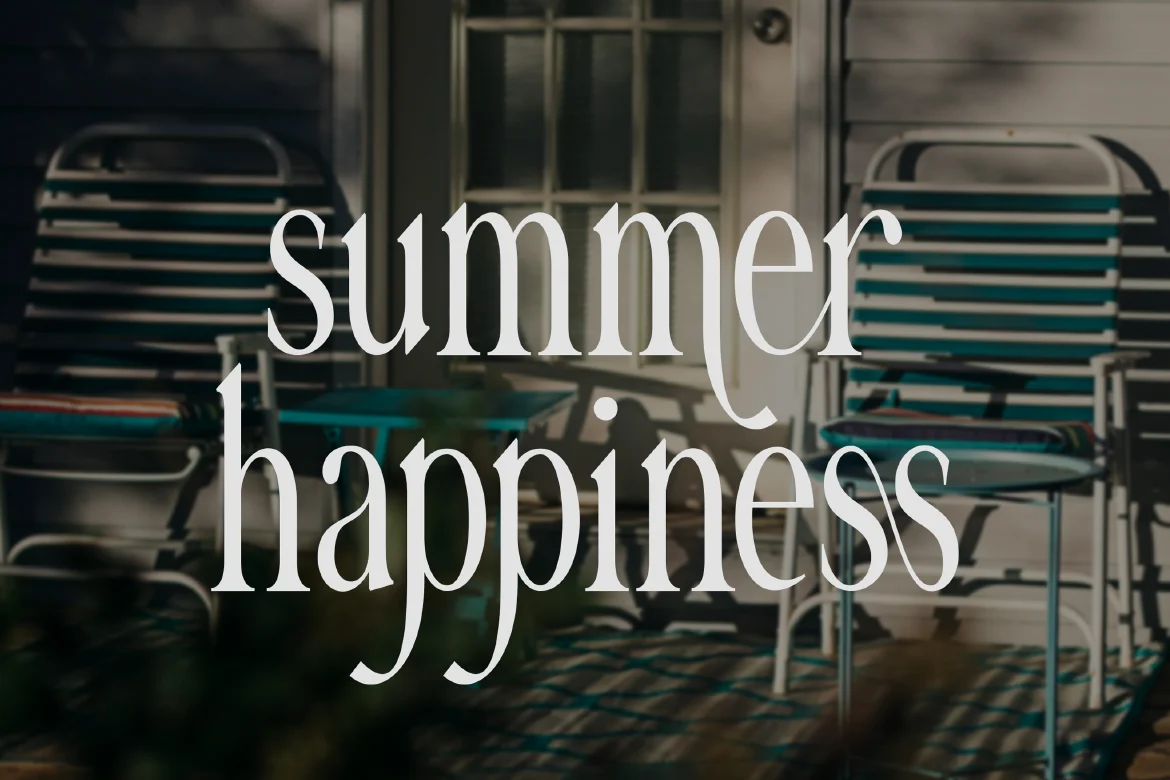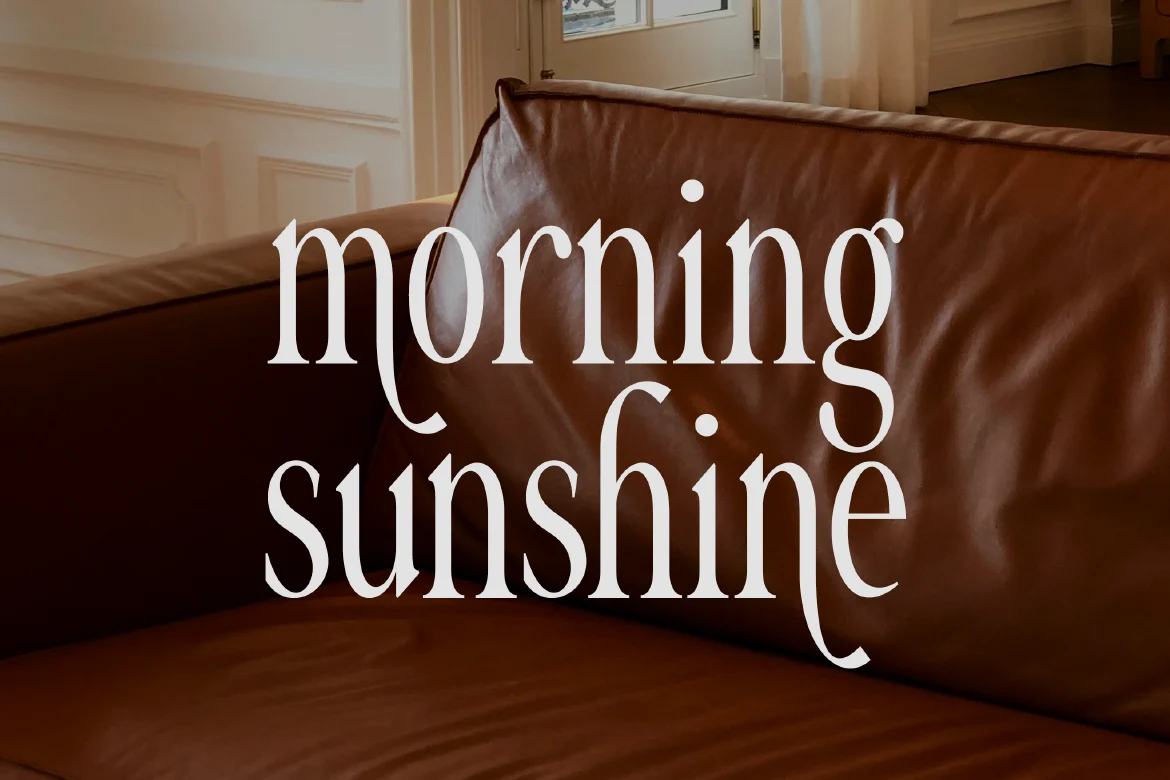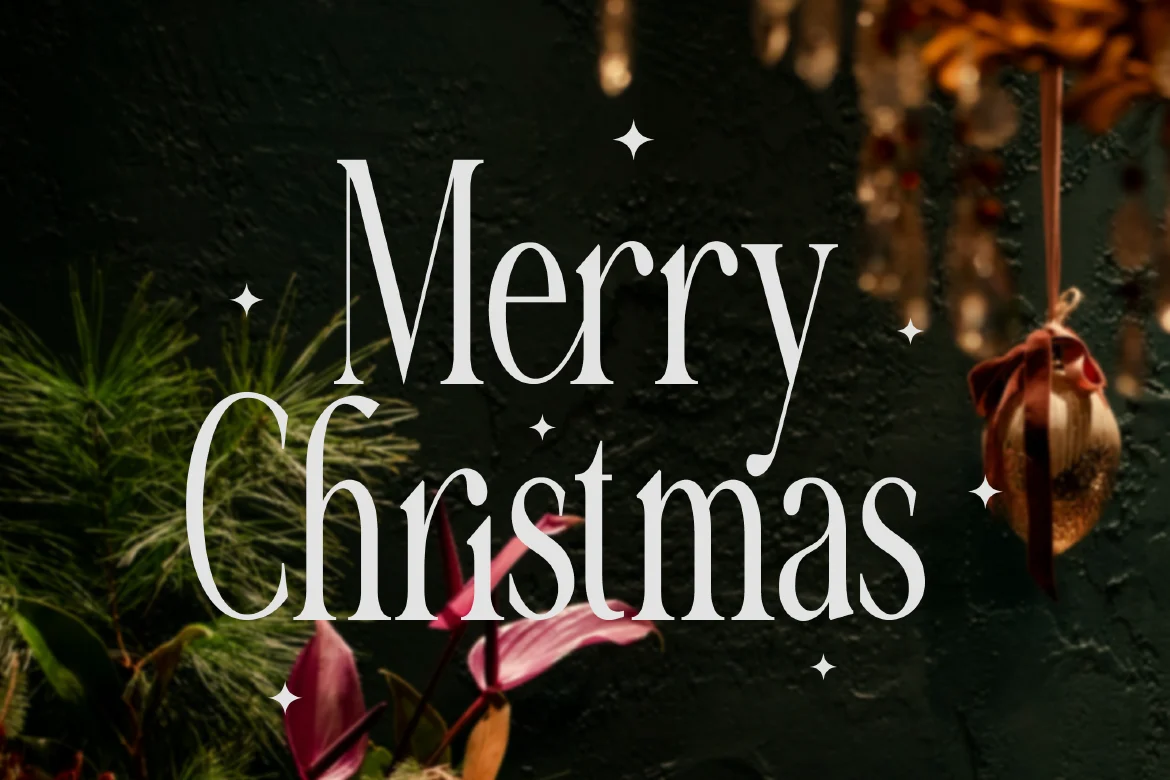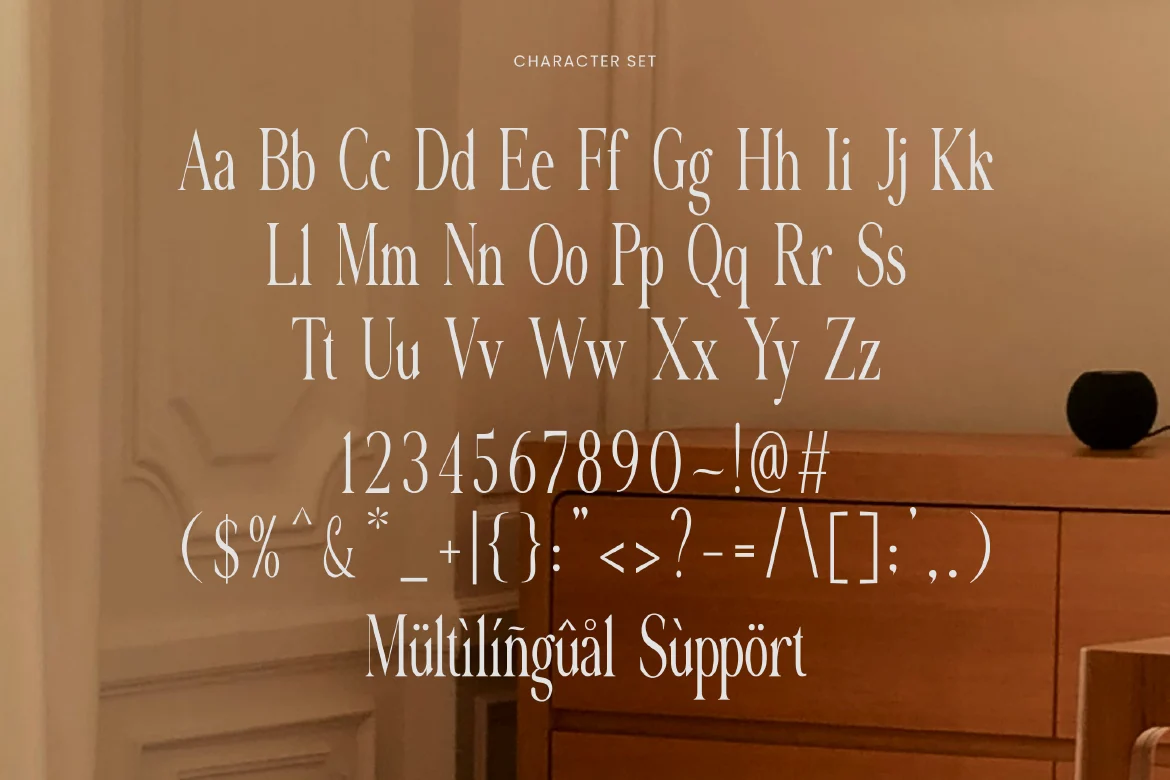
Elegant Serif Font – Fragilous
Modern Elegant Serif Font - Fragilous
Fragilous is a modern elegant serif typeface designed to express delicate beauty with a refined contemporary touch. Featuring graceful curves, fine contrast, and sophisticated letterforms, Fragilous creates a soft yet striking visual presence. Its elegant structure blends classic serif charm with modern styling, making it perfect for designs that require both subtlety and luxury. Whether for branding, editorial layouts, or premium packaging, Fragilous brings a sense of grace and high-end appeal to every composition.
Who Should Use Fragilous?
Fragilous is ideal for designers, creatives, and brands who want to convey elegance, femininity, and modern sophistication. It’s especially suited for projects that require a refined serif with a luxurious and delicate aesthetic.
Luxury branding and identity design
Fashion and beauty projects
Editorial and magazine layouts
Elegant logo design
Premium packaging and labels
Wedding and event design
Social media visuals
Sophisticated typography compositions